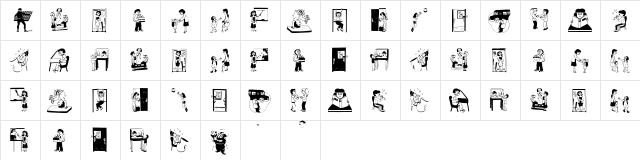
Back2School Regular
Design Context for Back2School Typeface
Back2School is a composed and adaptable typeface that performs quietly and consistently across a wide range of design contexts.